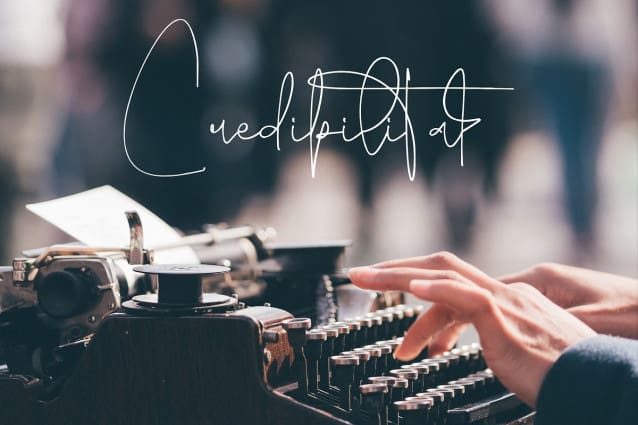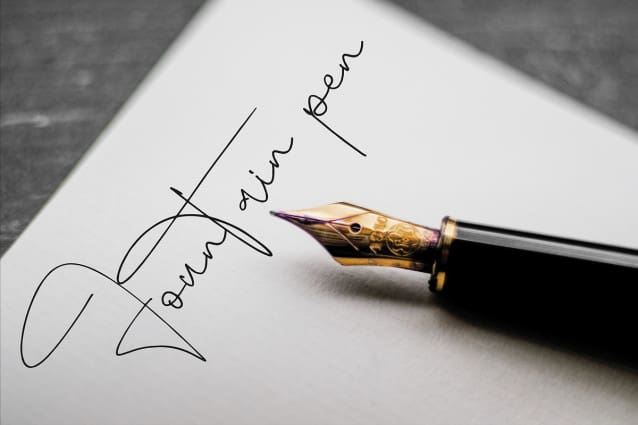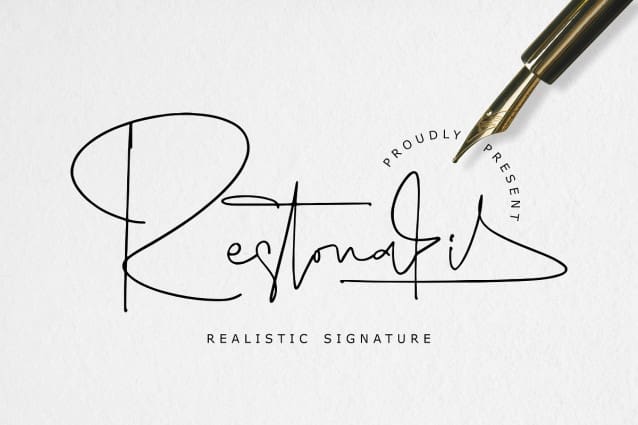
Restonasi Signature Font
Restonasi Signature Font, created by Storytype, A luxury script that has own unique style & modern look. This typeface is perfect for an elegant & luxury logo, book or movie title design, fashion brand, magazine, clothes, lettering, quotes, and so much more.